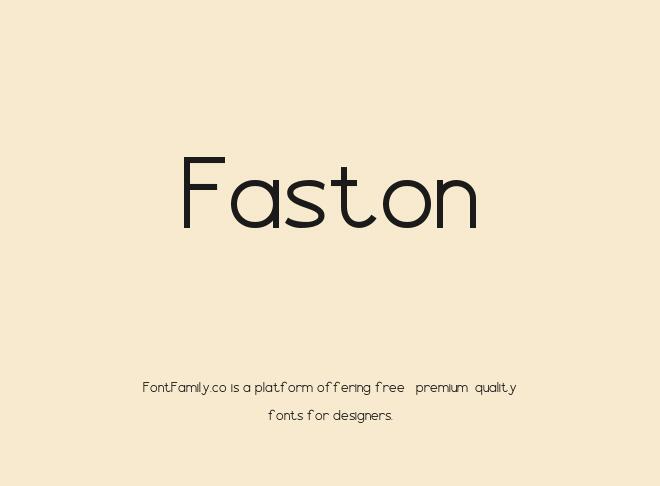
Faston Font
Faston Font, a creation of Faston Foundry, is a distinctive modern font with a geometric touch. Released in 2021, this font stands out for its clean lines and sharp angles, making it an ideal choice for designers looking to add a contemporary flair to their work. Faston Font is perfect for display purposes, particularly in graphic design projects, logos, and branding. Its geometric structure gives it a unique edge, setting it apart from more traditional fonts. Despite its modernity, Faston Font maintains a high level of readability, making it not only stylish but practical. Free for personal use, this is a font that every designer should add to their arsenal, promising to elevate any project it's applied to.
Author | Faston Foundry |